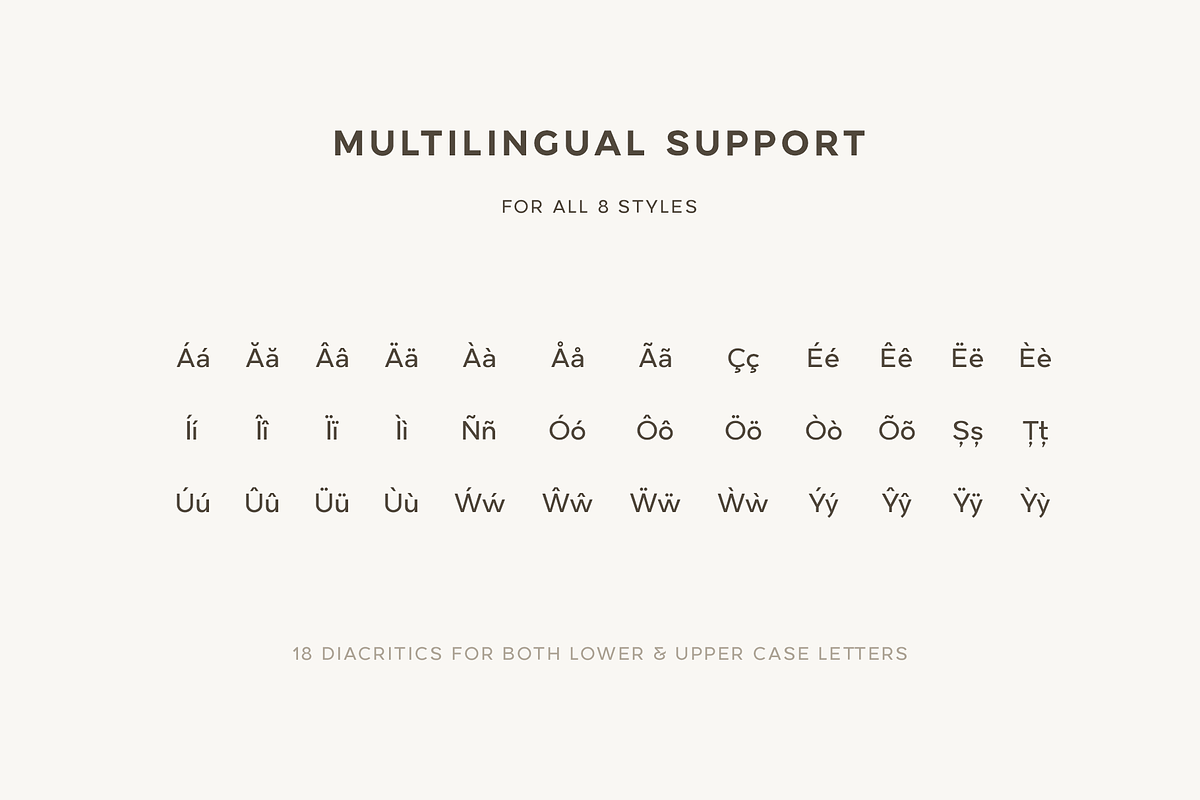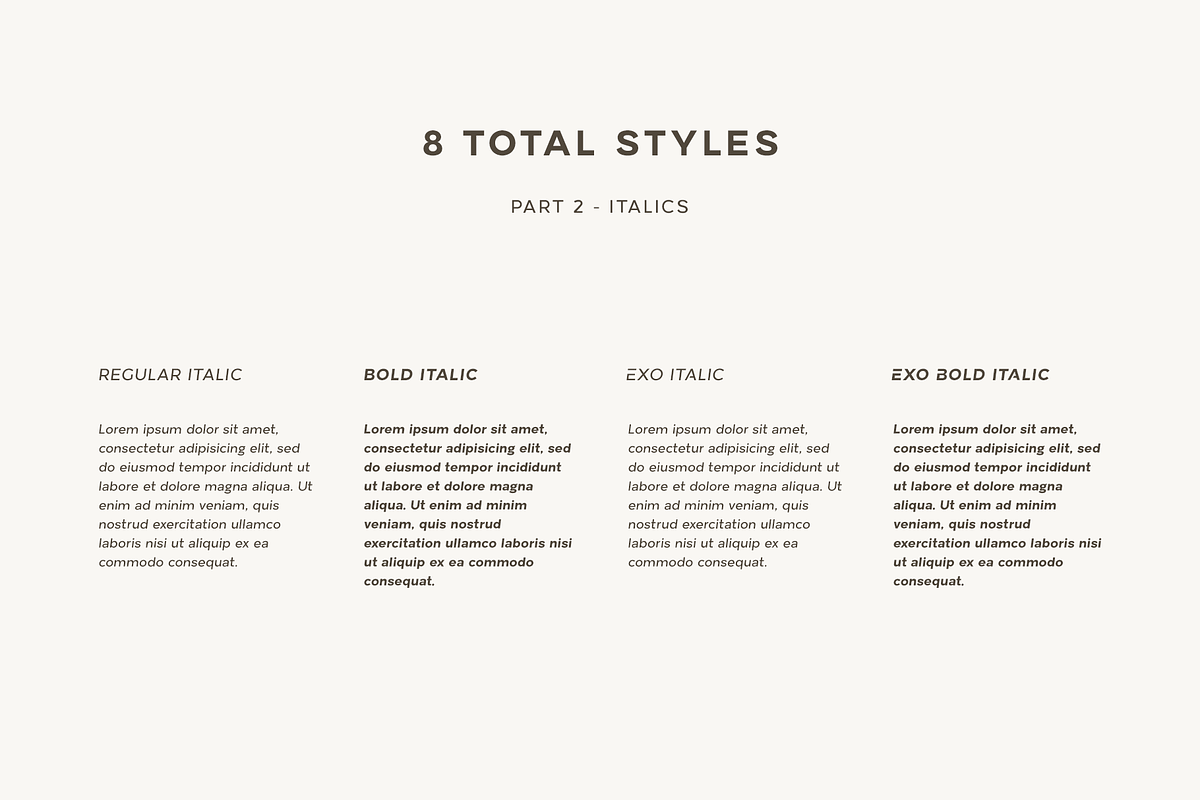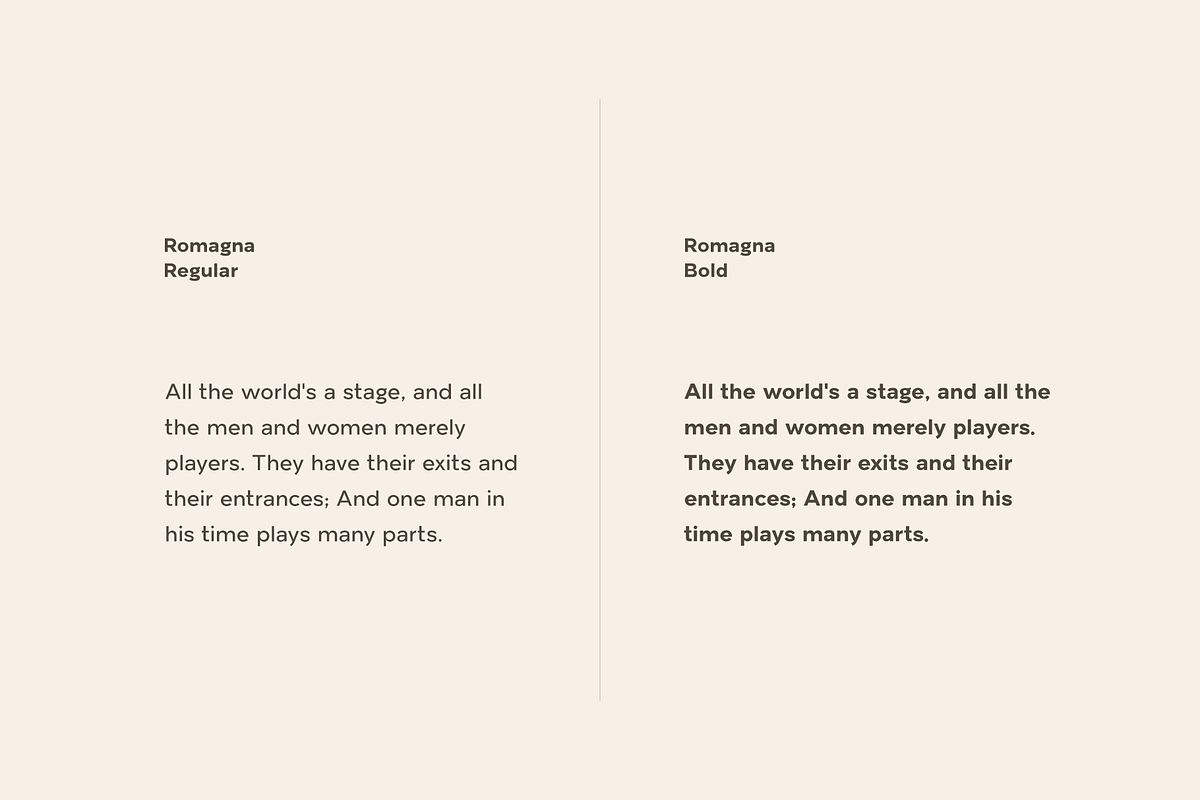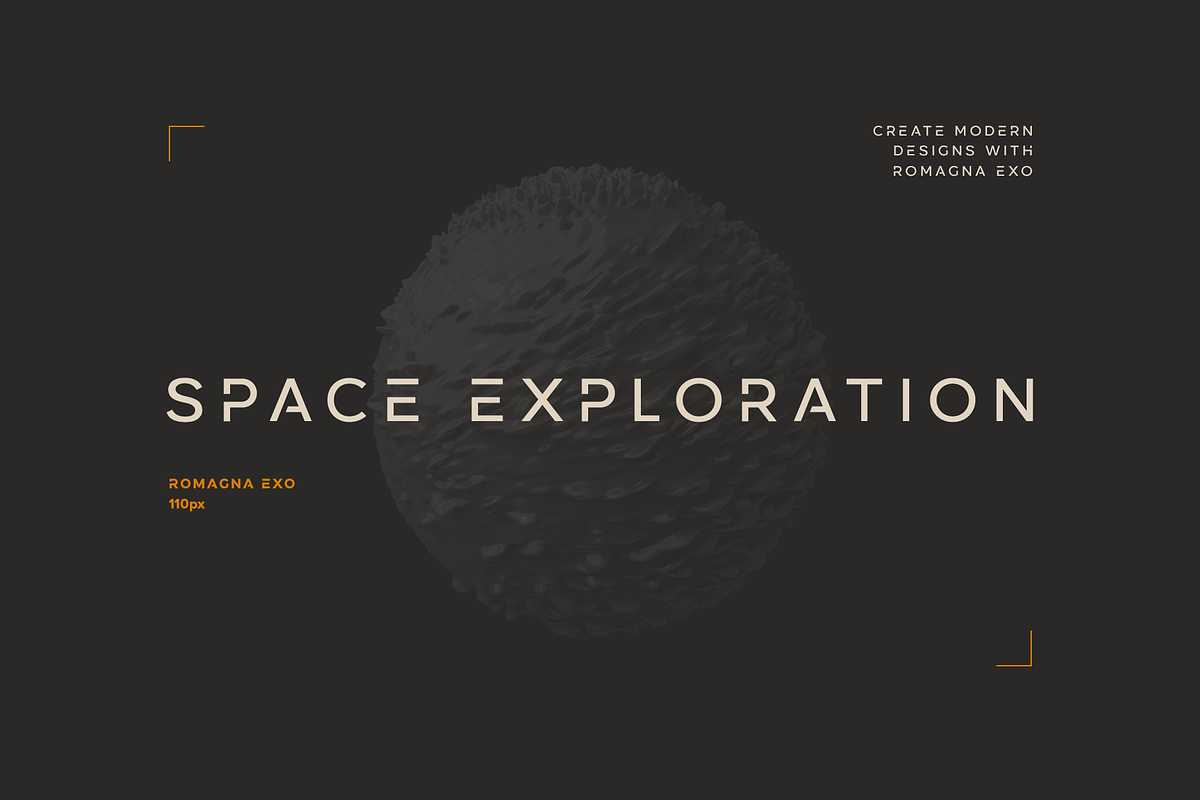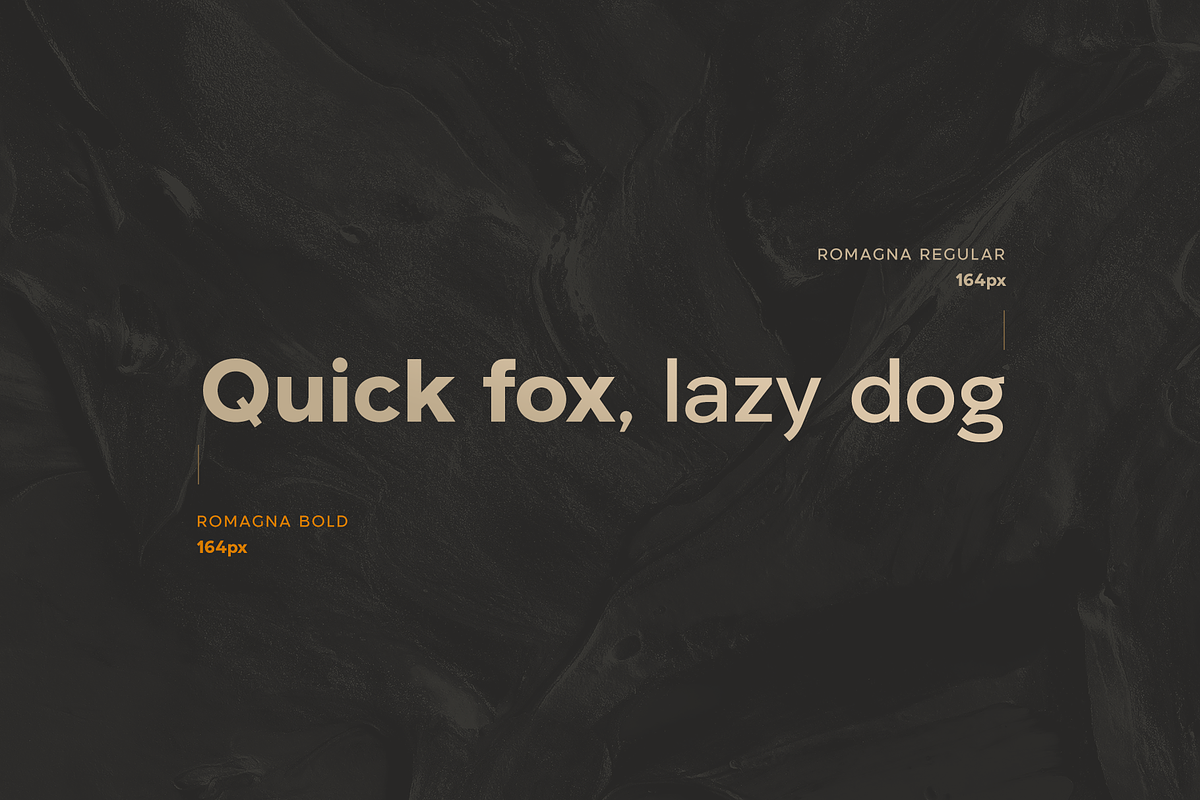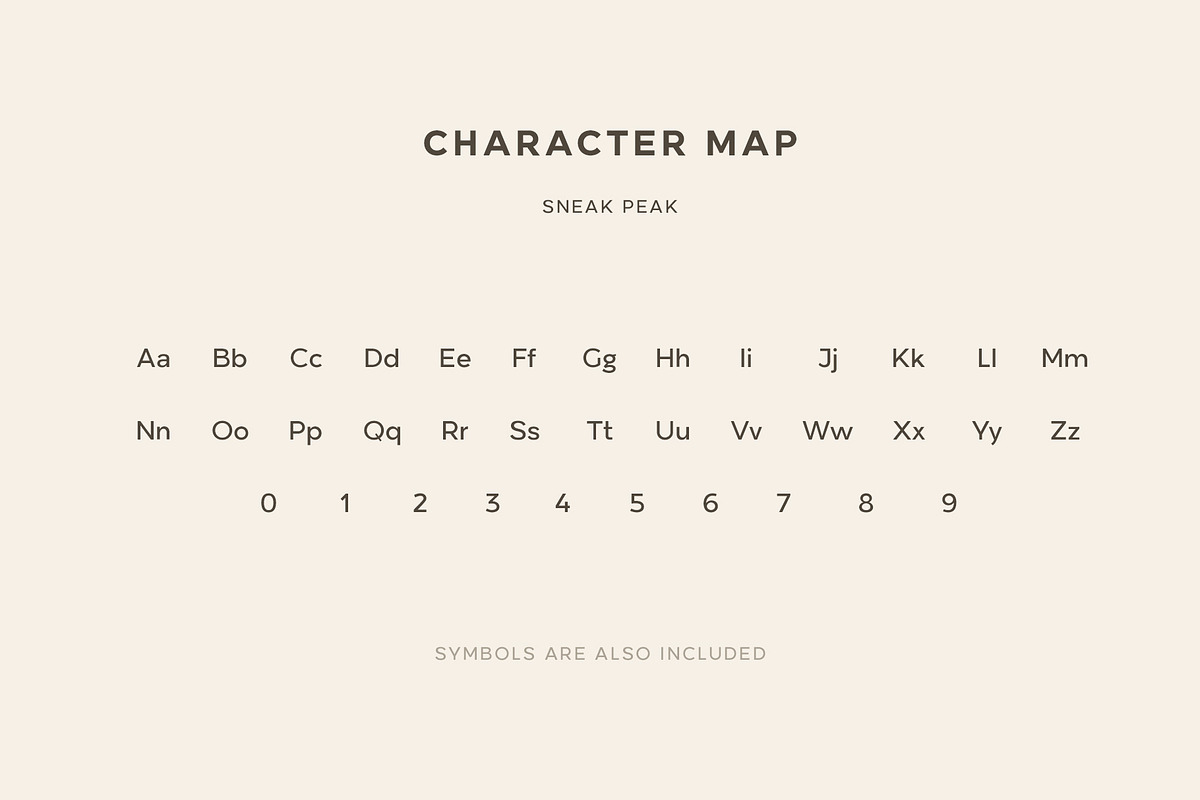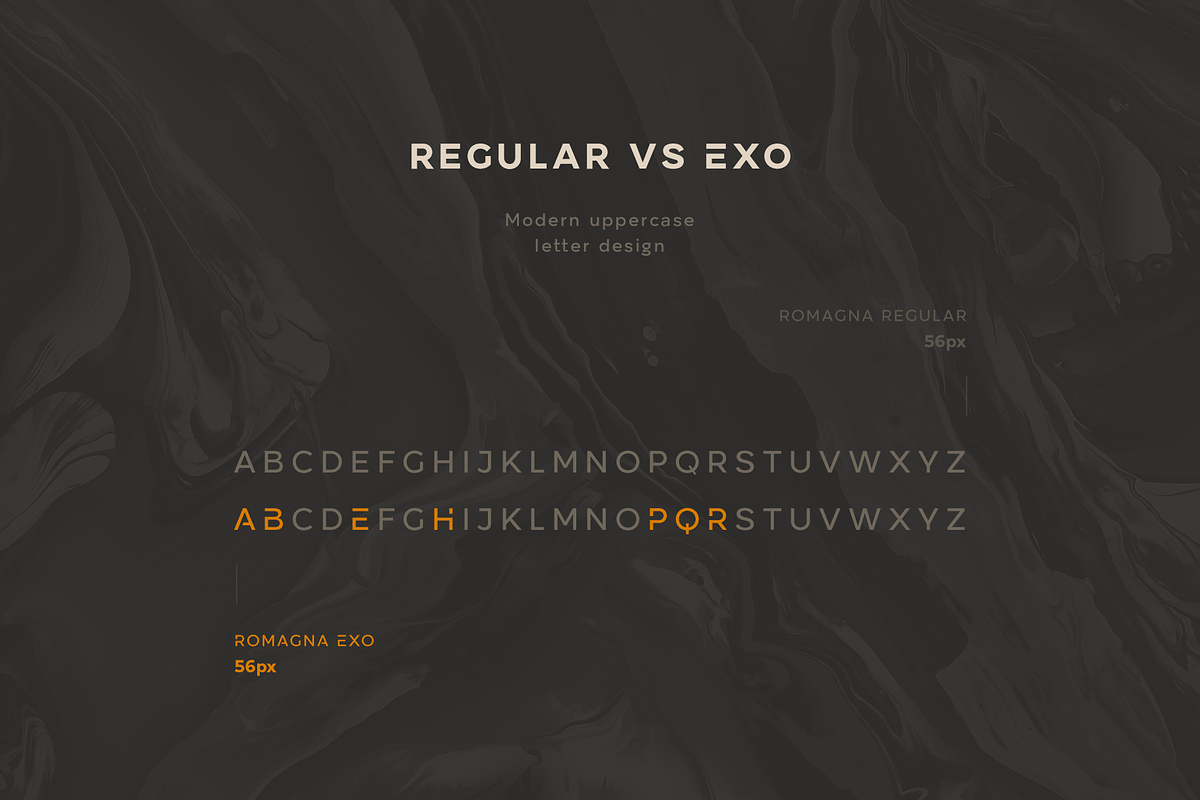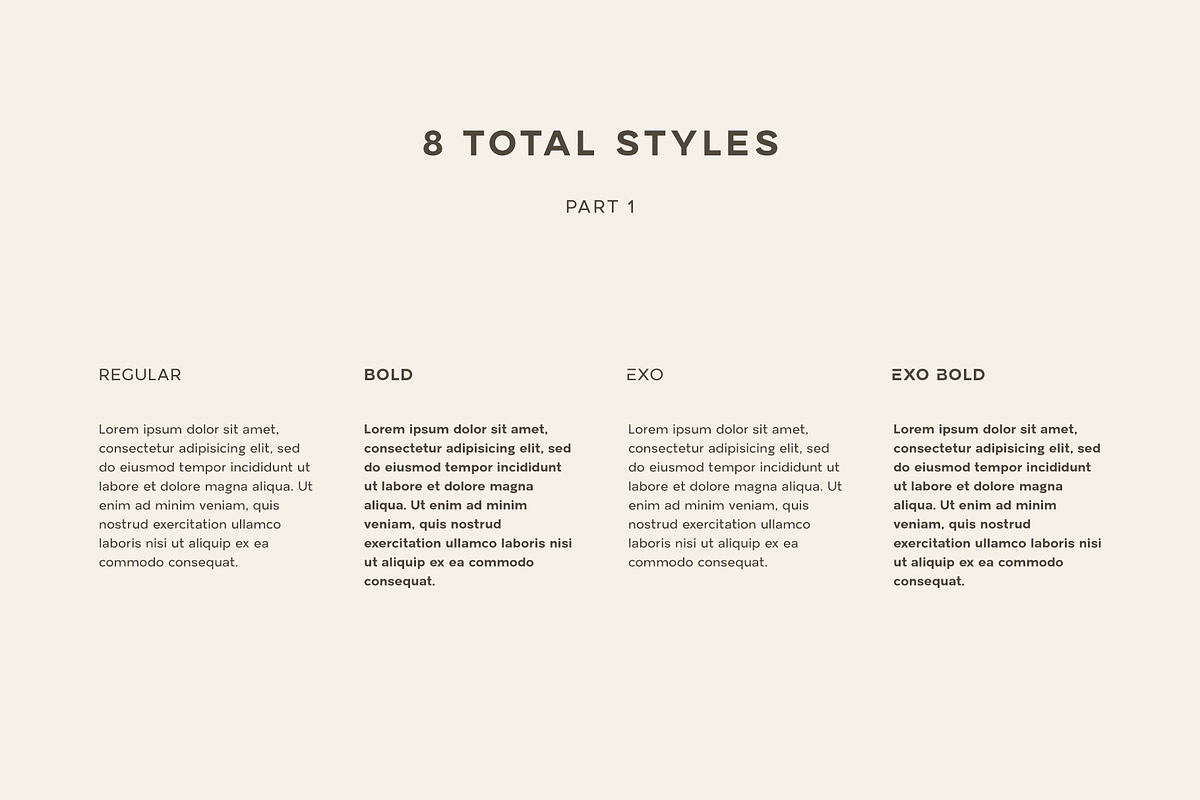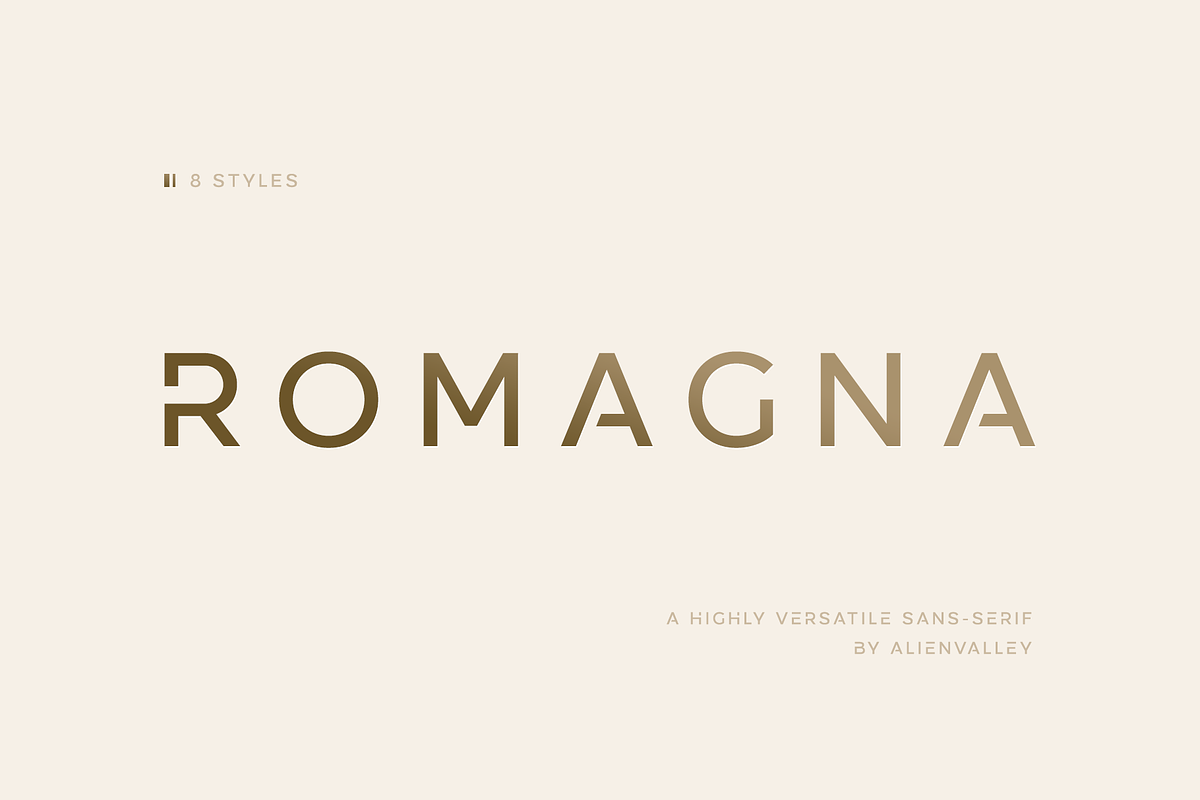
Romagna - Versatile Sans-Serif
Romagna is a modern and highly versatile sans-serif typeface designed for readability without sacrificing aesthetics. There are 8 included styles to pick from including regular + bold weights plus italics and 2 different uppercase styles so you can either go with a classic look or a modern futuristic theme.
- Modern design
- Easy to read characters
- Great for both headlines & large chunks of text
- Great versatility
- 8 Included styles
STYLES
- Bold
- Exo
- Exo Bold
- Regular Italic
- Bold Italic
- Exo Italic
- Exo Bold Italic